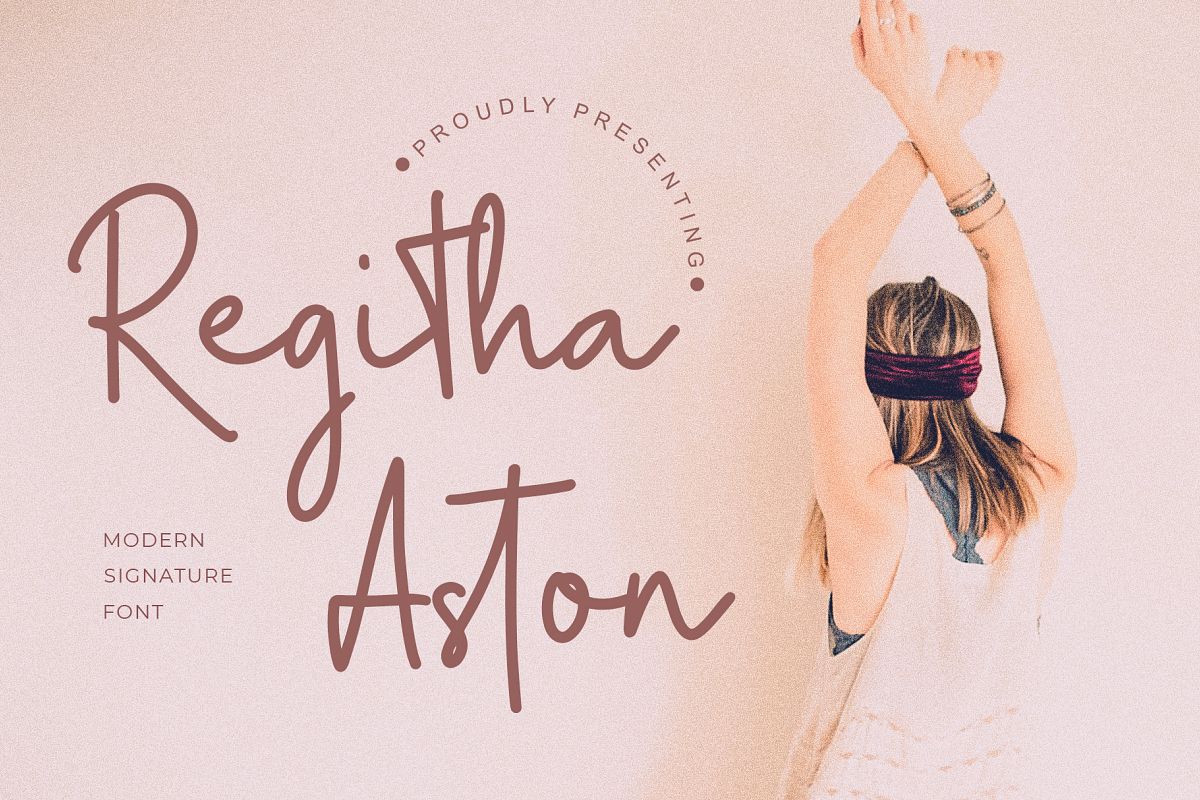
Regitha Aston
Regitha Aston is an exciting handwritten font with signature style. This beautiful script can make your design project look elegant, classy, and modern.
Regitha Aston is perfect for branding projects, logo, wedding designs, social media posts, advertisements, product packaging, product designs, label, photography, watermark, invitation, stationery and any projects.What's Included :